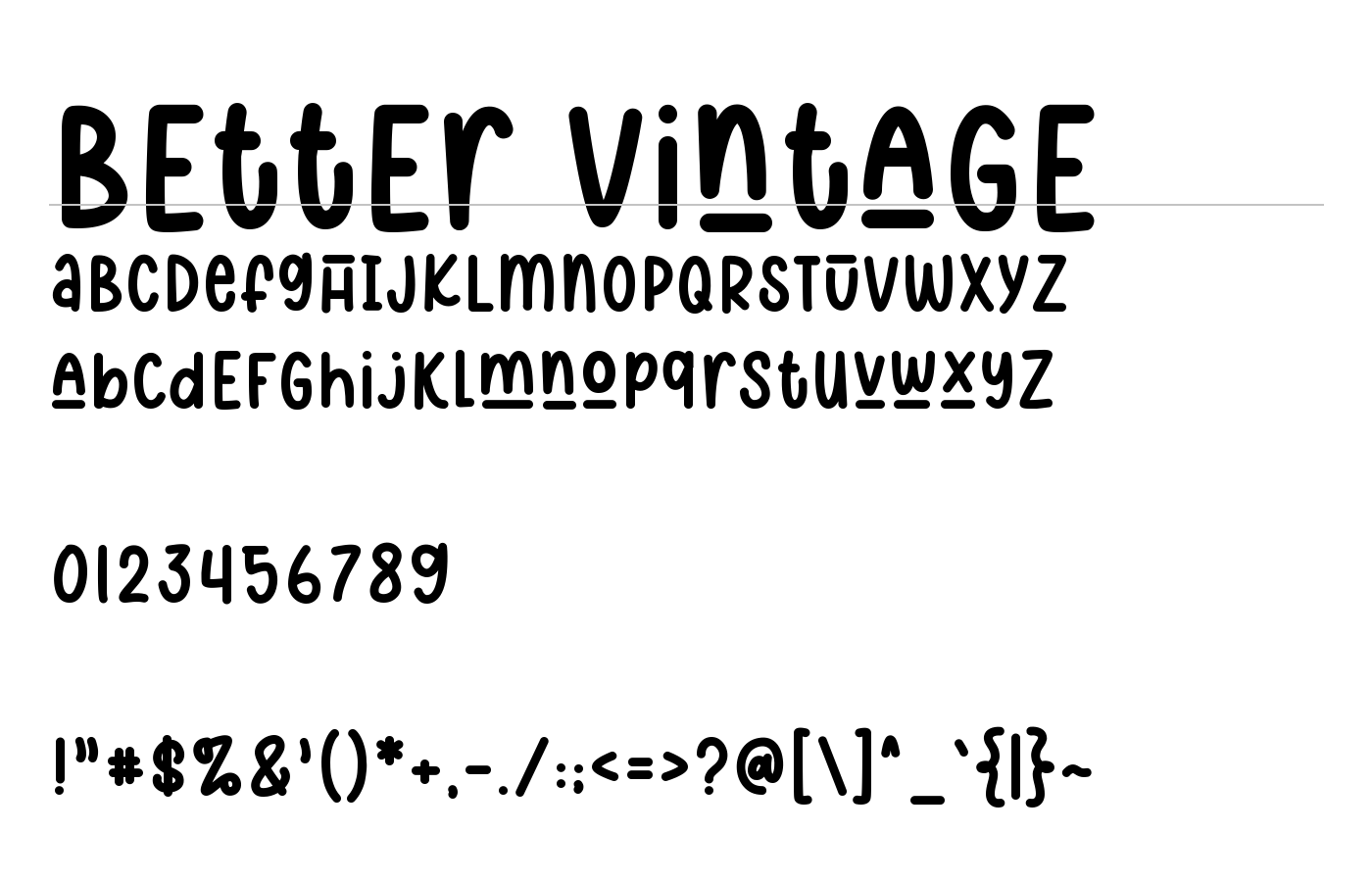
Better Vintage Font is a playful and quirky sans serif with a hand-drawn, casual vibe. Its rounded, slightly irregular shapes and variable stroke widths give it a friendly and approachable character, making it perfect for fun, informal designs like children's books, casual branding, or creative packaging. This font brings a lively, nostalgic charm that works well for headlines and display use where a vintage-inspired yet modern feel is desired.
Better Vintage Font
About Better Vintage Font
| Font family | Better Vintage Font |
| Designer | Letter Art Studio |